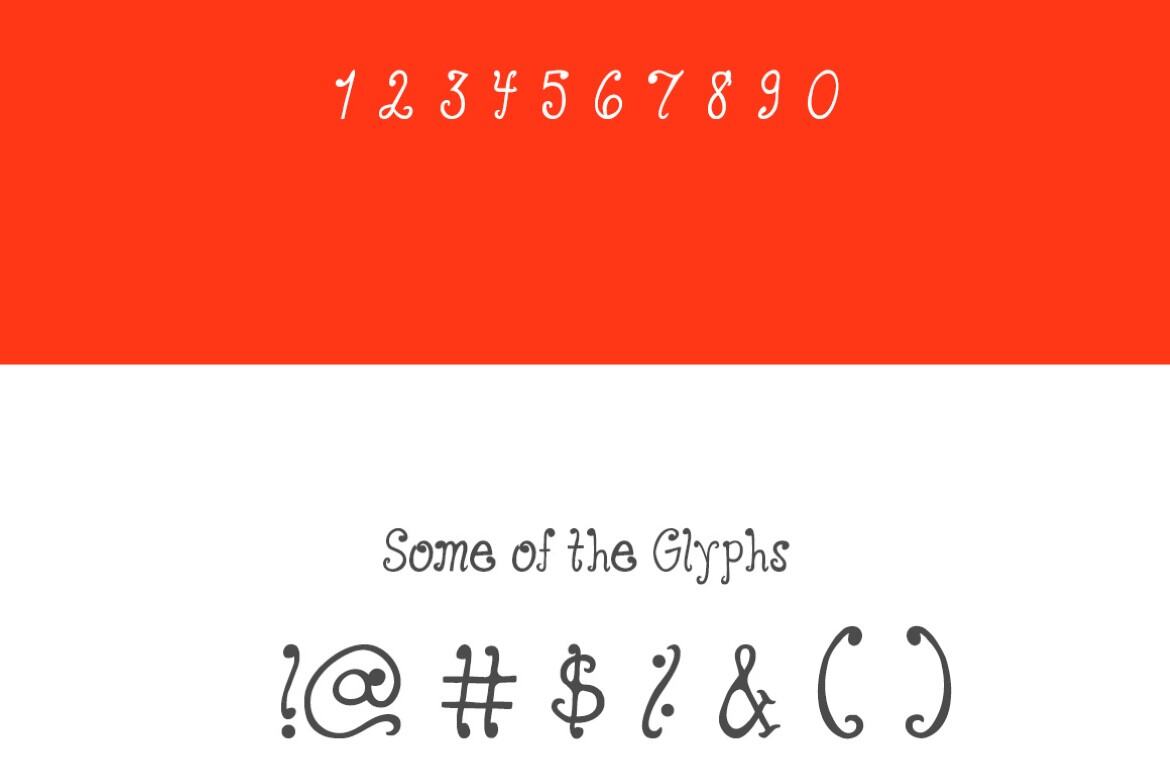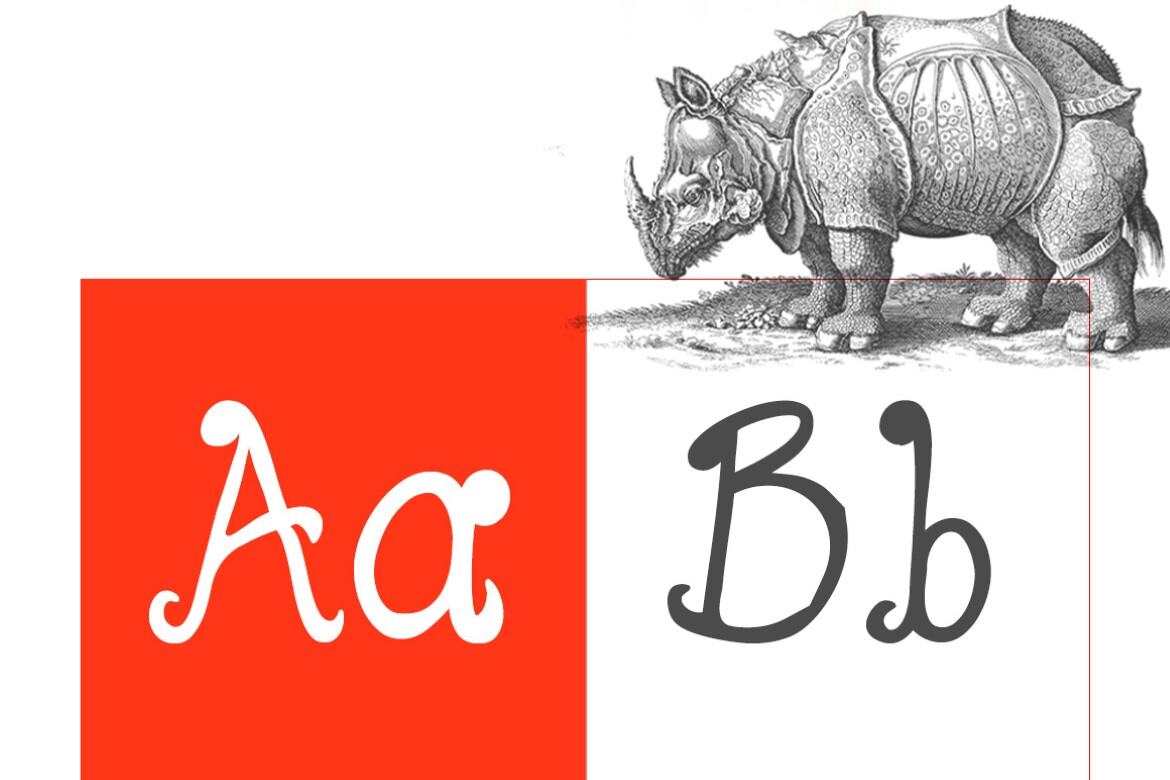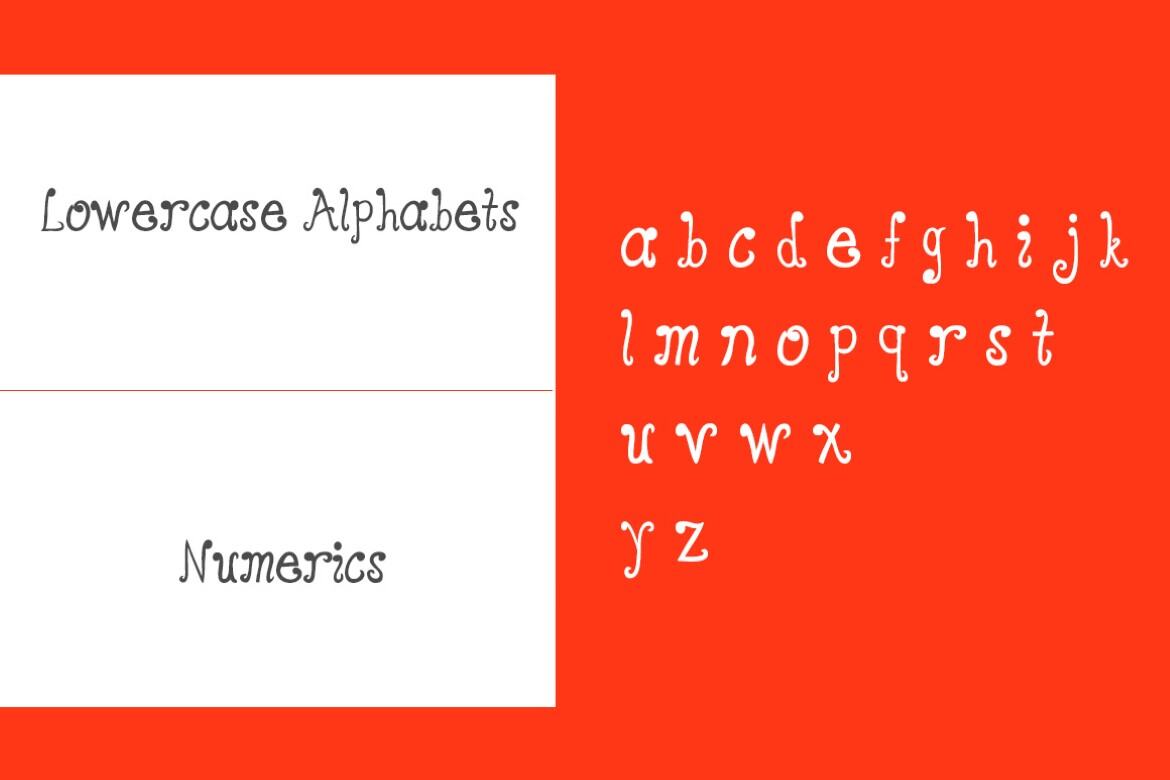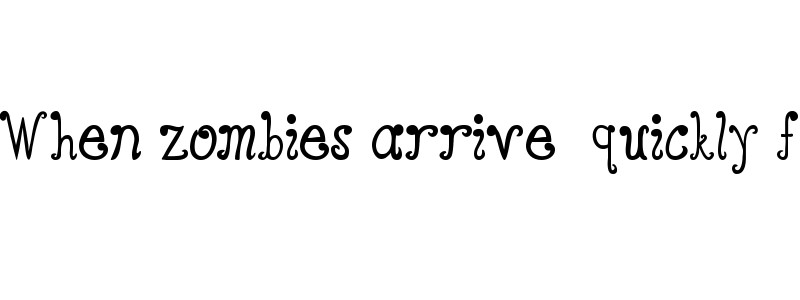
Curly - Free Font
Curly
You can add funky and cool headlines or copy with this carefully drawn font. Use this font in sleek designs, holiday cards, wedding invitations, quotes, advertisements, and more.
• great for script books, fancy decorations, comics